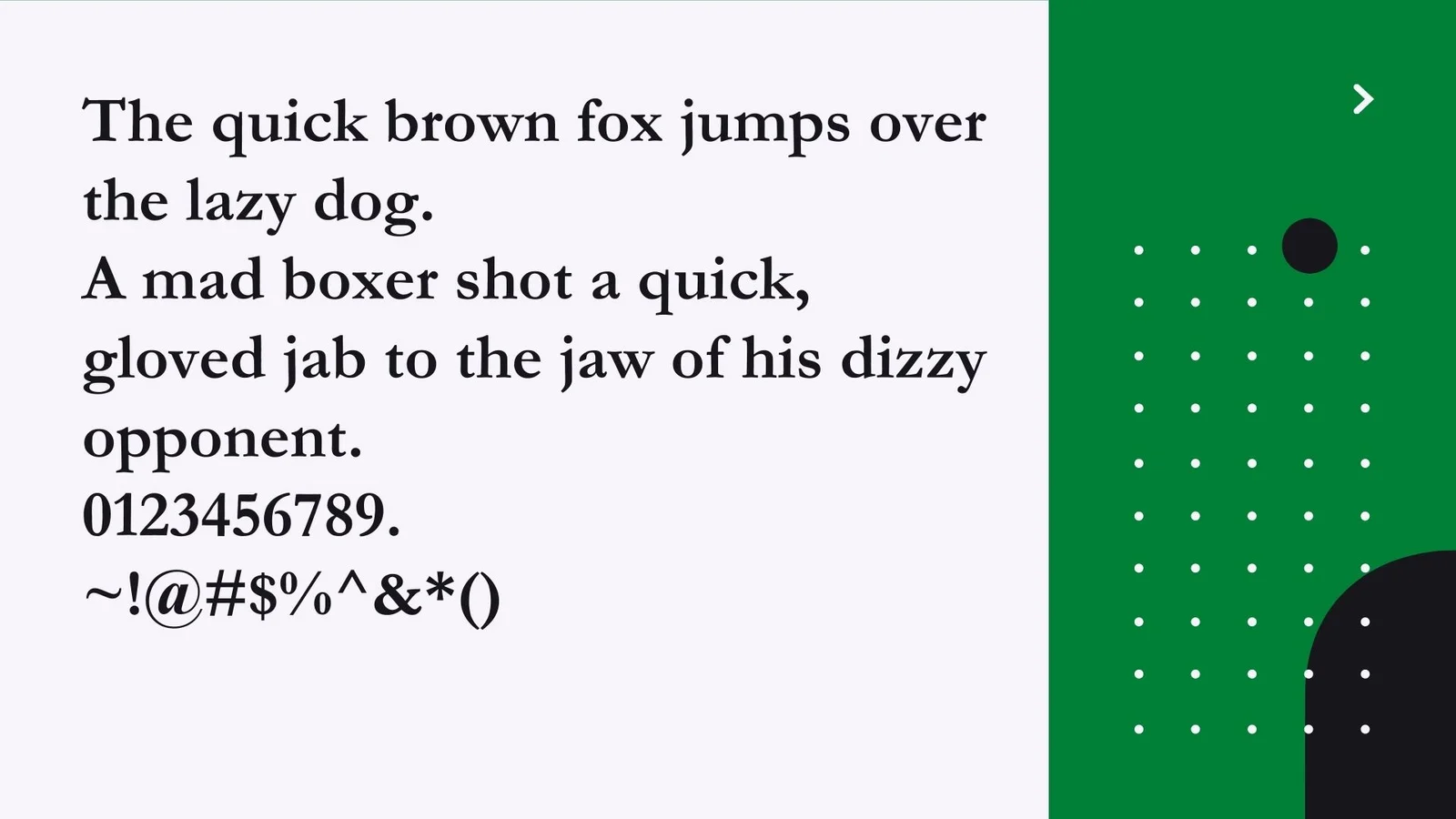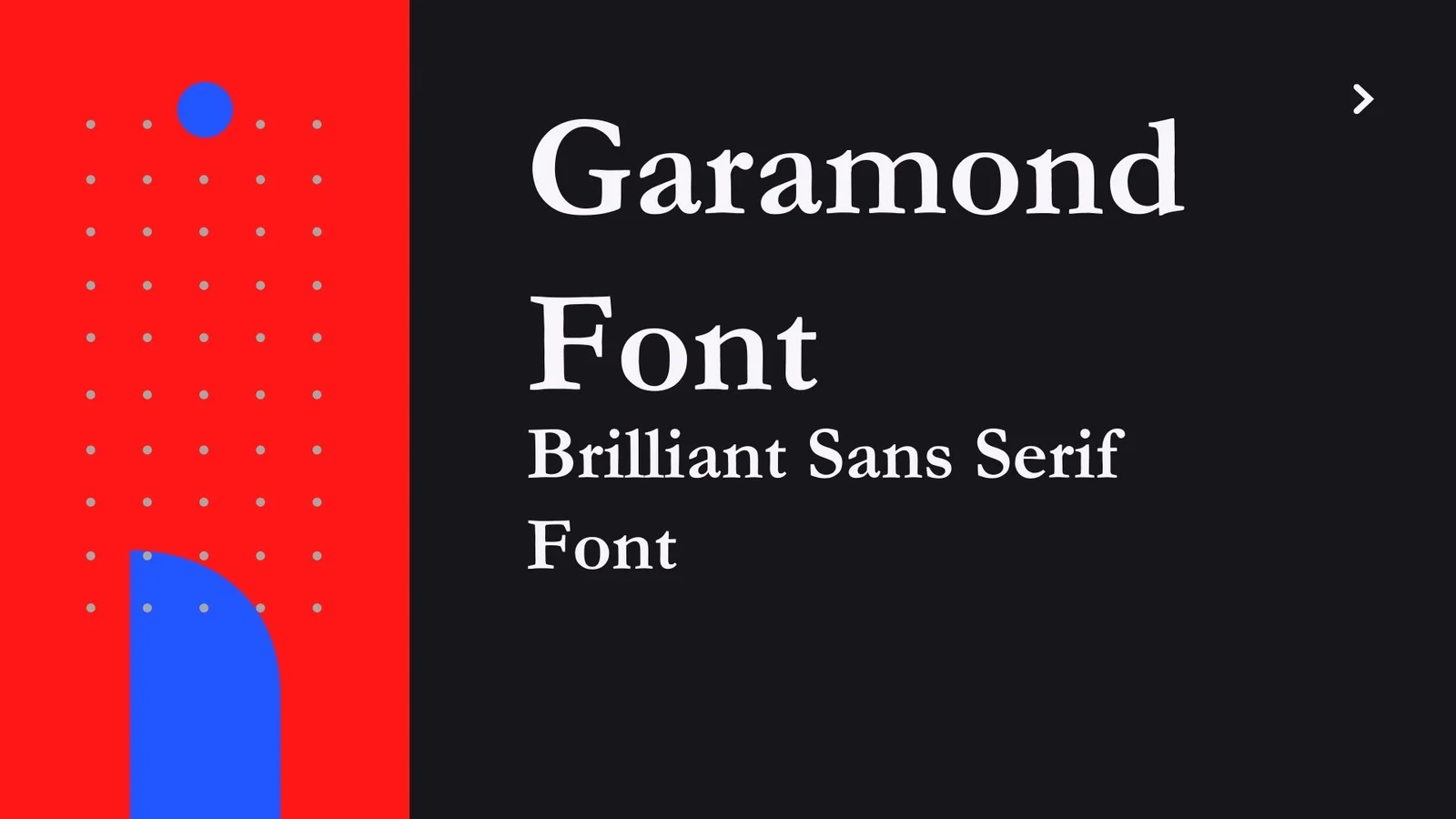
About Garamond Font
Timeless French Renaissance serif typeface
Font Features
- High-quality serif design
- Perfect for classic applications
- Excellent character coverage
- Versatile and professional